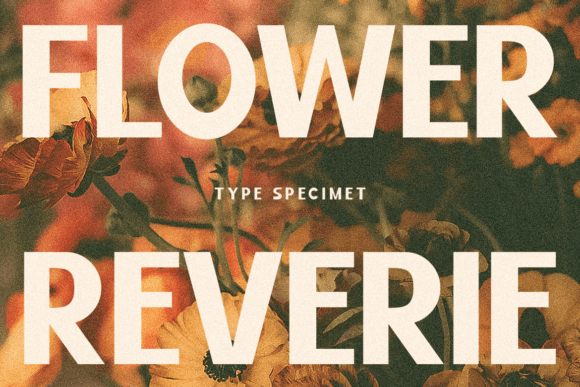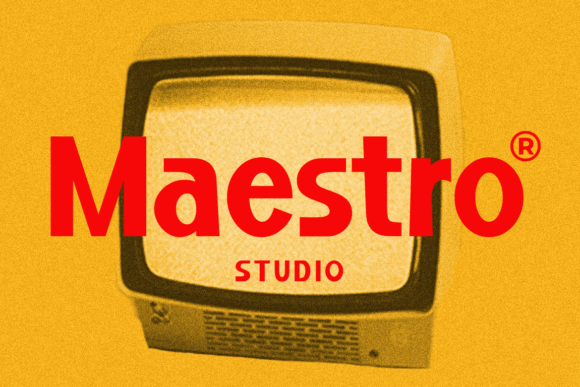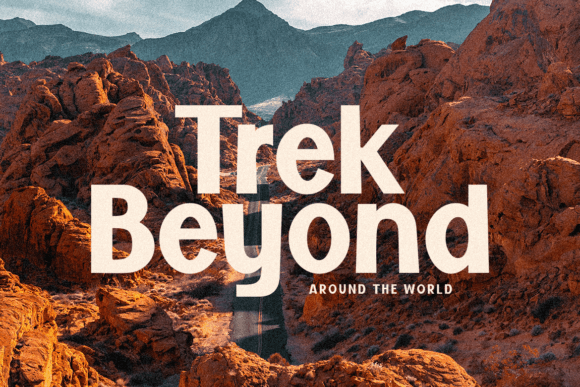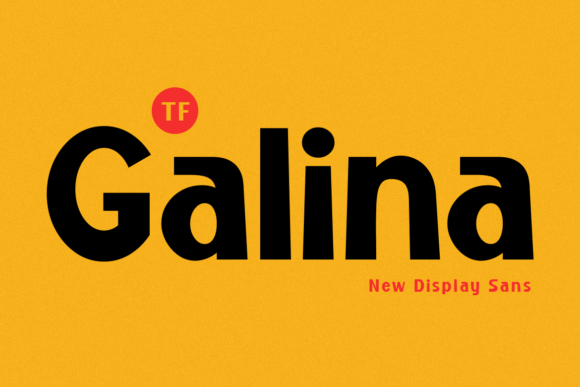
Introduction to Galina Font Font
Galina is a captivating display sans font that effortlessly blends modernity with a touch of retro charm.
With its clean and sleek letterforms, this font exudes a contemporary elegance, while subtle vintage influences add character and warmth .